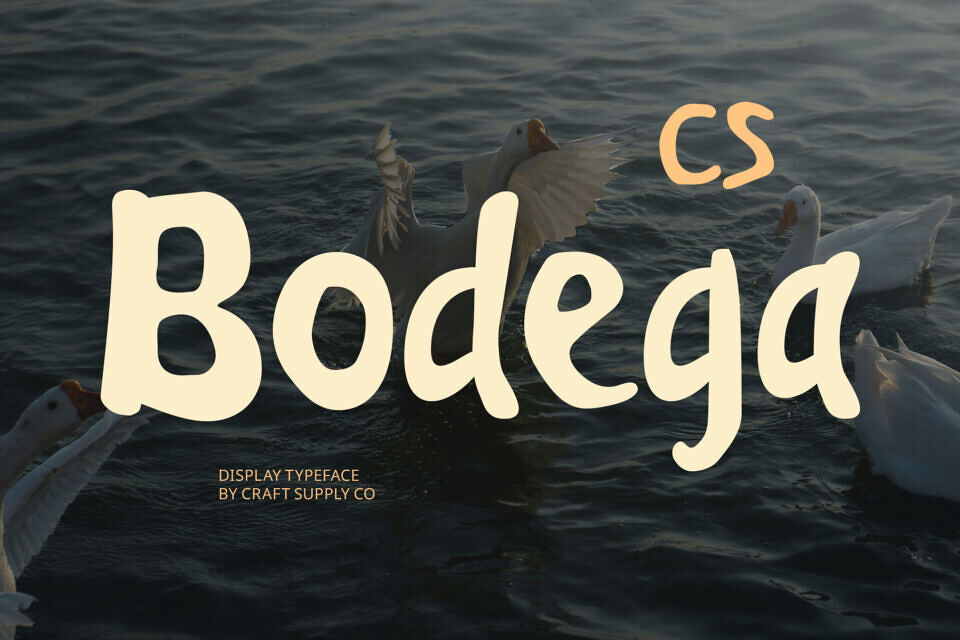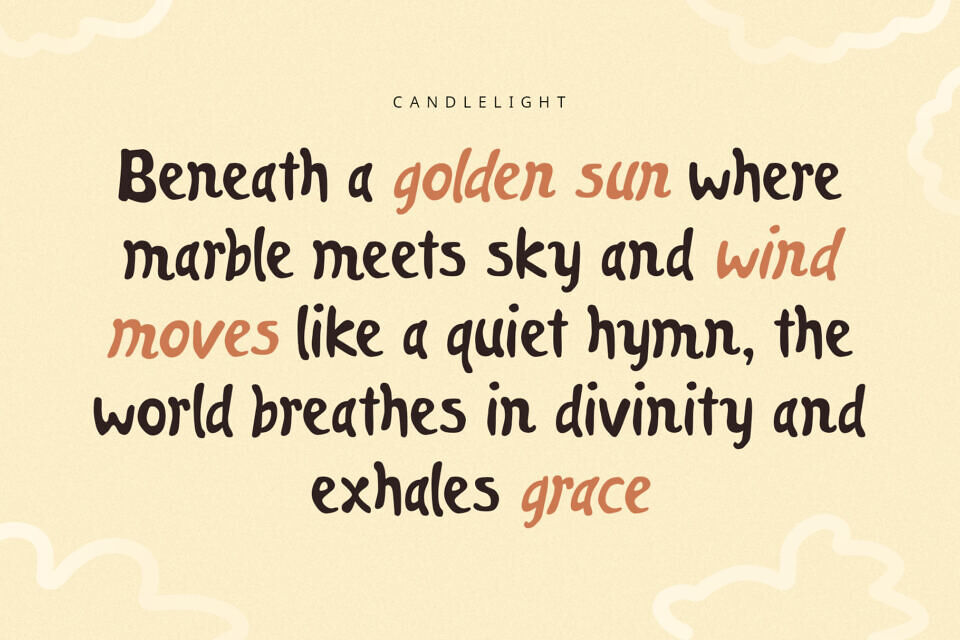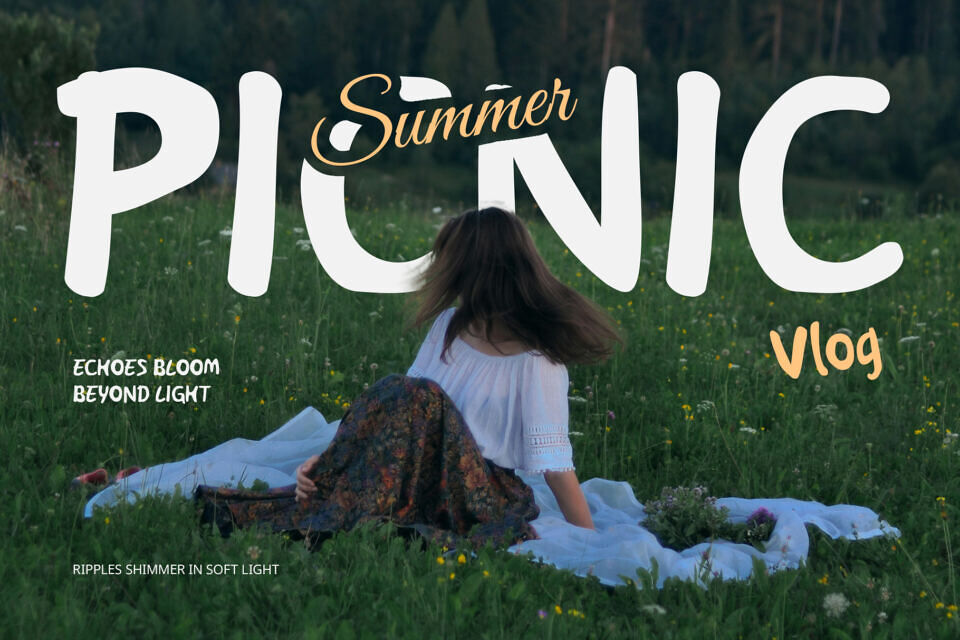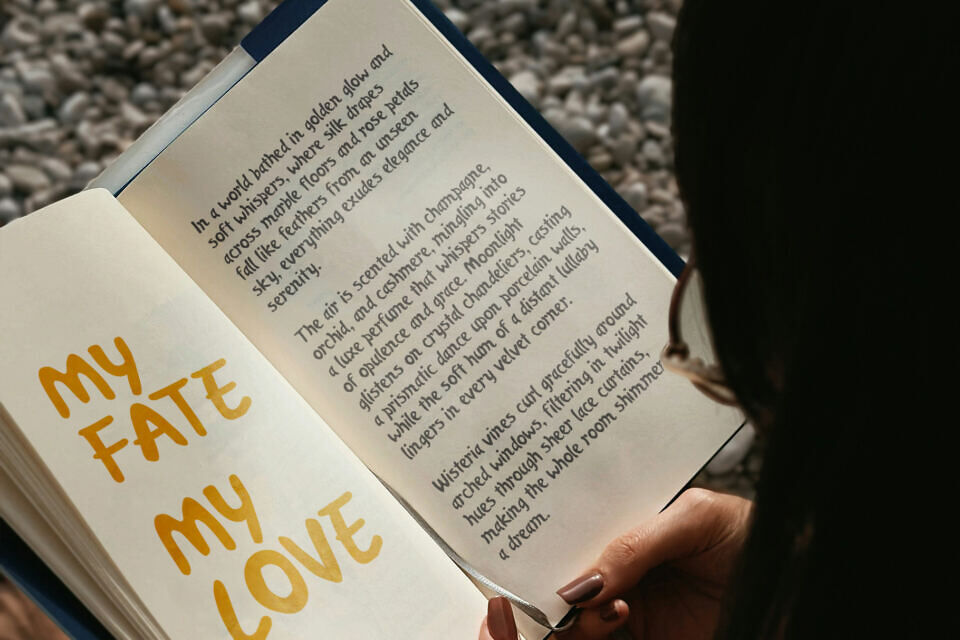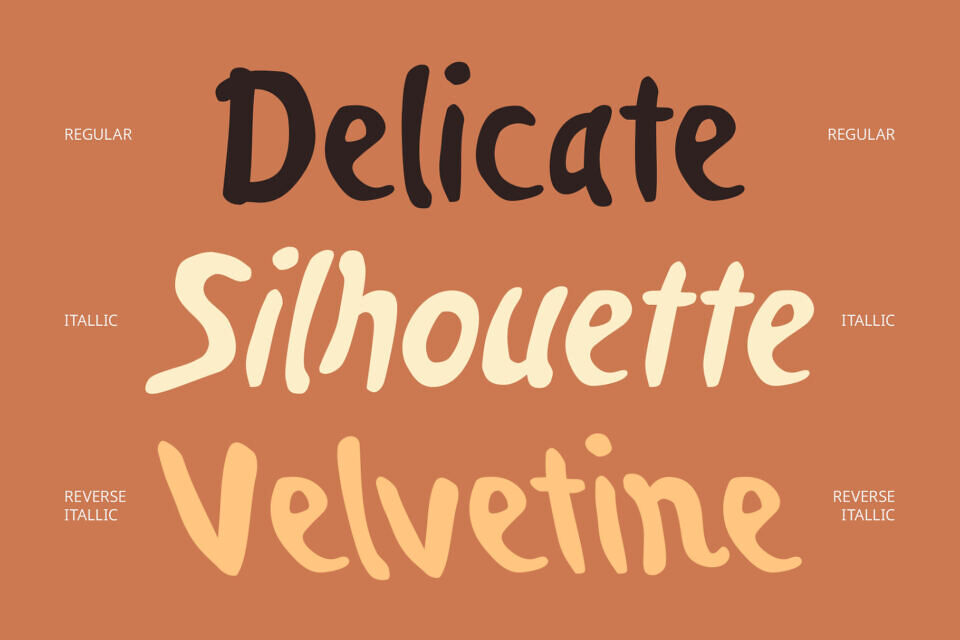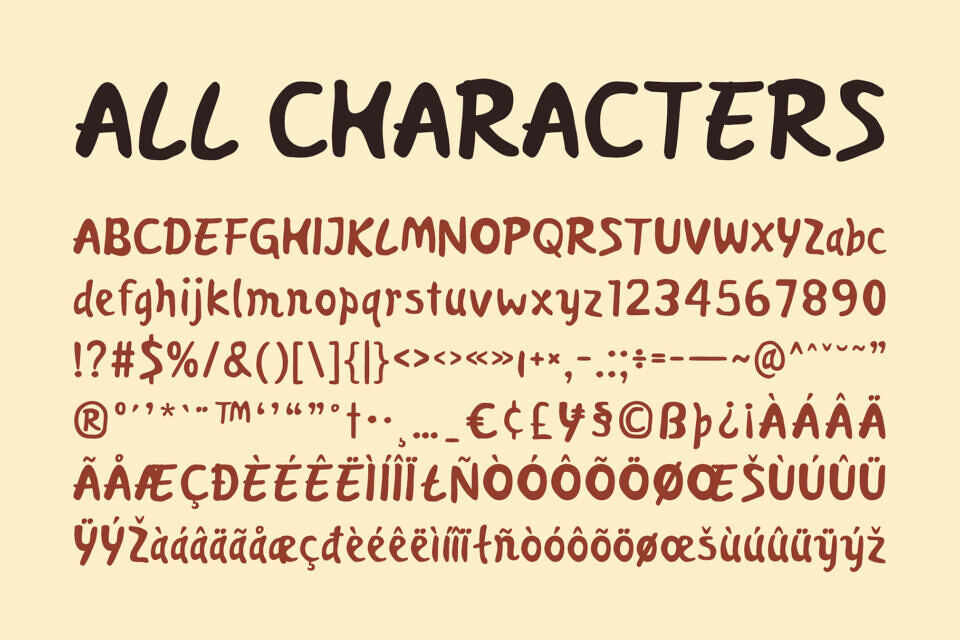
CS Bodega is a modern display font with a clean and contemporary handwritten style that bursts with playful charm. Each letter flows with natural, expressive movement, delivering a cute, funky, and cheerful vibe that instantly adds personality to your design.
Crafted to feel friendly and spontaneous, this font radiates joy and creativity. Its informal yet polished structure gives it the versatility to shine in both casual and professional creative work, always maintaining a warm and welcoming tone. This blend creates a font that is fun and relaxed, while still remaining modern and versatile, perfect for a wide variety of visual applications.
CS Bodega is ideal for children’s content, product packaging, greeting cards, fun logos, posters, and any design that aims to be engaging, approachable, and full of life.